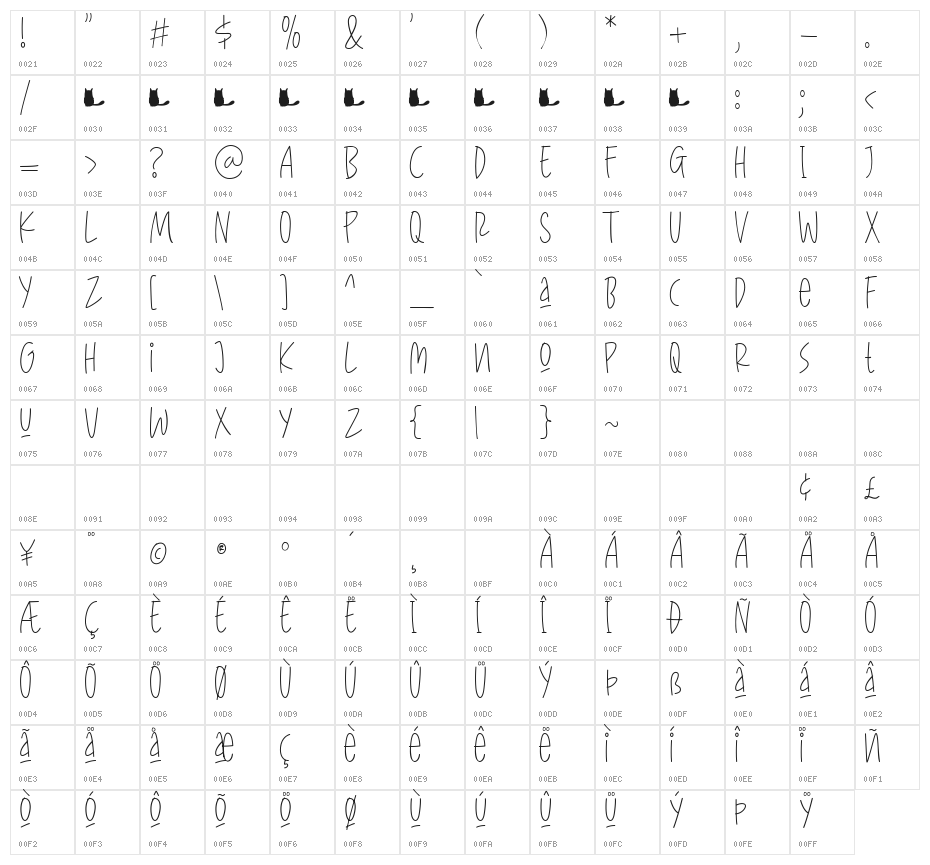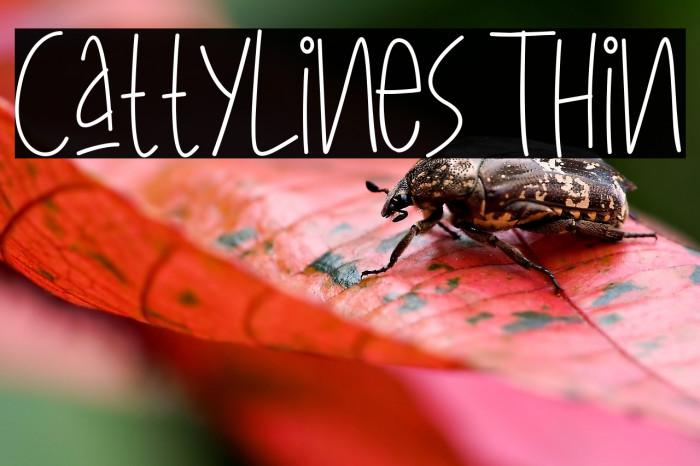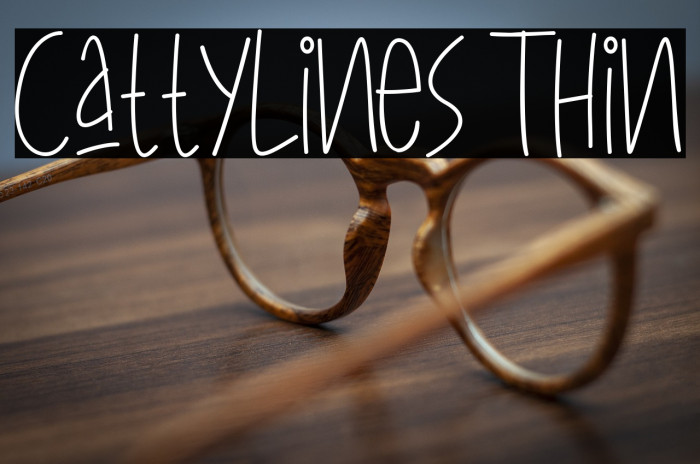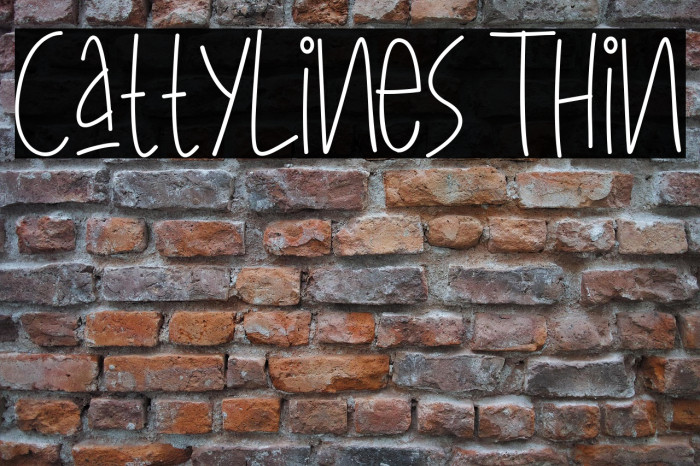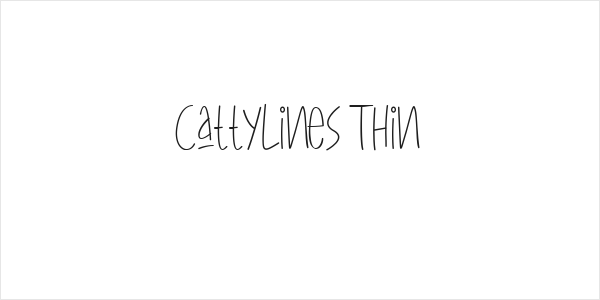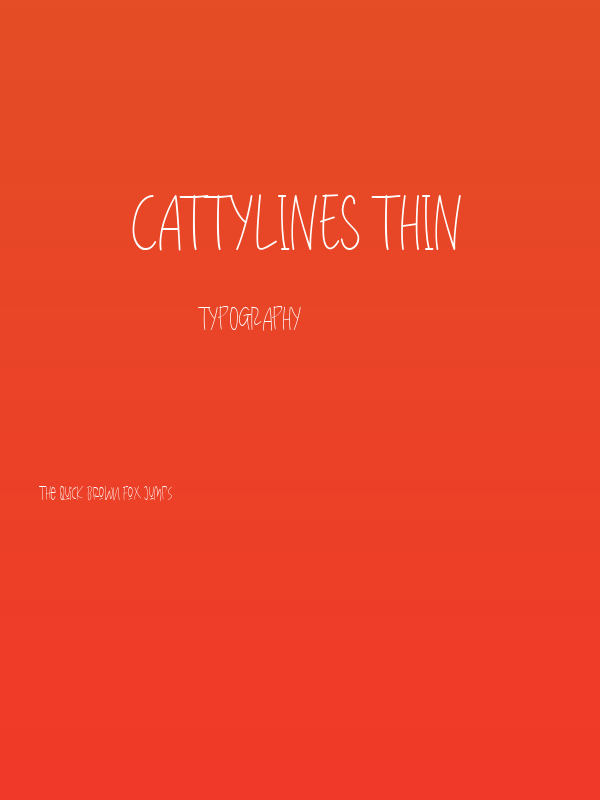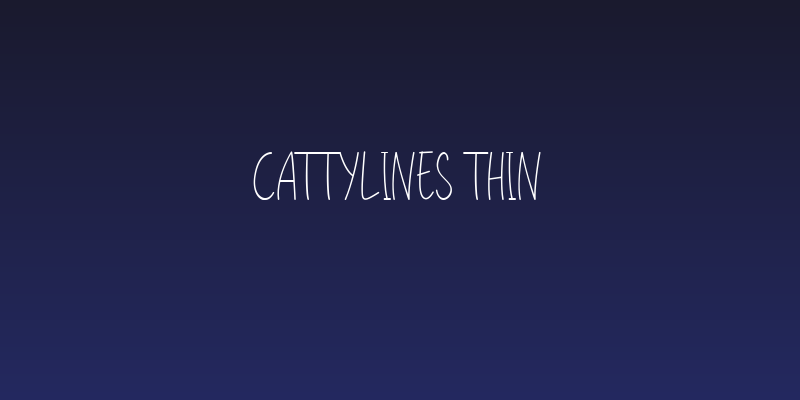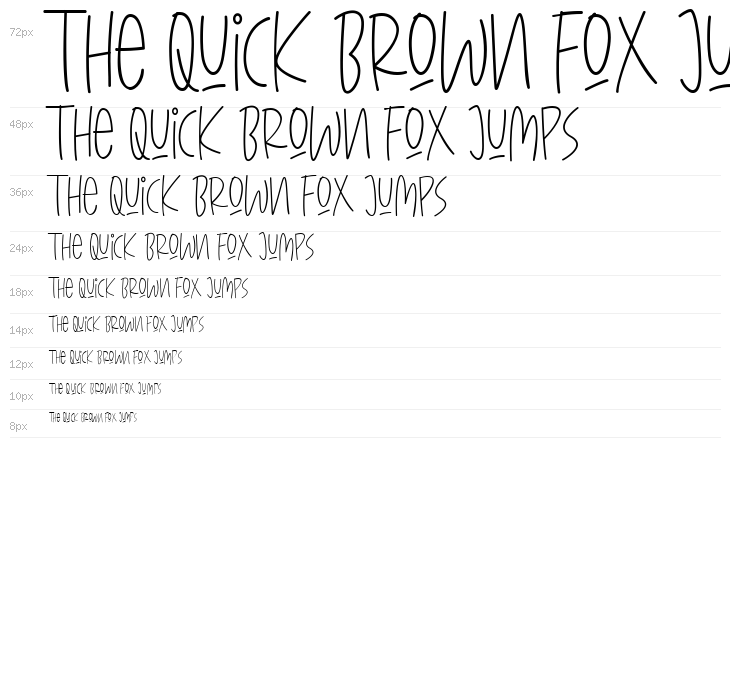
CattyLines Thin Font
CattyLines Thin Description
This font features a playful and whimsical design, characterized by its thin, elongated letterforms that give it a light and airy feel. The strokes are consistent in width, contributing to a clean and modern aesthetic. The inclusion of cat silhouettes as decorative elements adds a unique and charming touch, making it stand out as a fun and creative choice. The font maintains a casual and informal style, suitable for projects that aim to convey a sense of friendliness and approachability. Its distinct personality makes it ideal for creative and artistic applications.
| Overall Style | Playful and Whimsical |
| Use Case | Headlines, Logos, Creative Projects |
| Proposed Projects | Ideal for children's books, playful branding, greeting cards, and creative posters. |